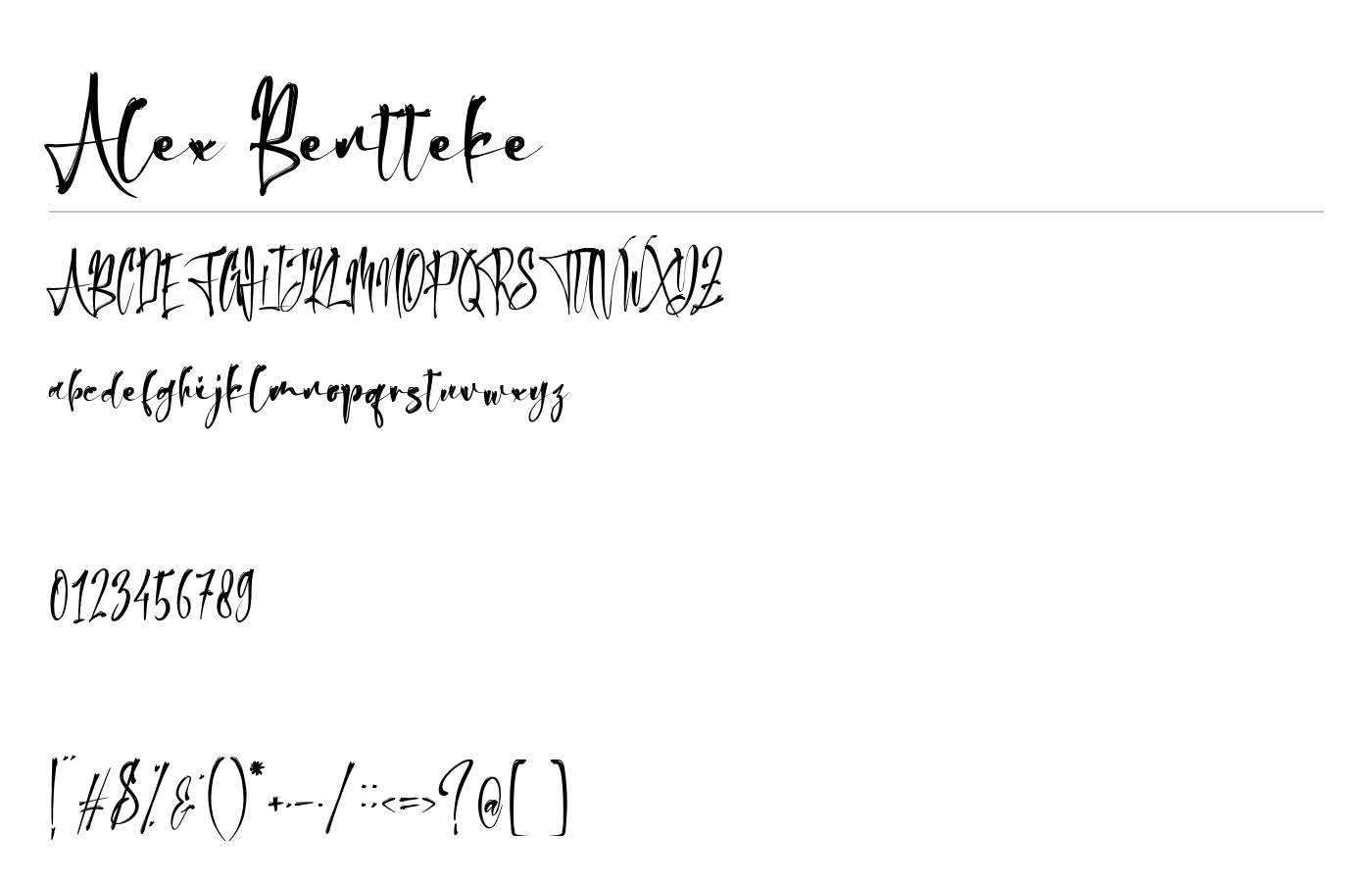
Alex Bentteke is a lively, handwritten script font with an artistic and slightly chaotic flair, featuring tall, slender letterforms with varied stroke widths that create a dynamic, expressive look. Its playful, irregular style makes it well-suited for personal branding, creative projects, and eye-catching headlines where a unique, handcrafted vibe is desired. This font works beautifully in invitations, logos, and social media graphics, adding a touch of individuality and energetic charm.
Alex Bentteke Font
About Alex Bentteke Font
| Designer | Pineungtype |